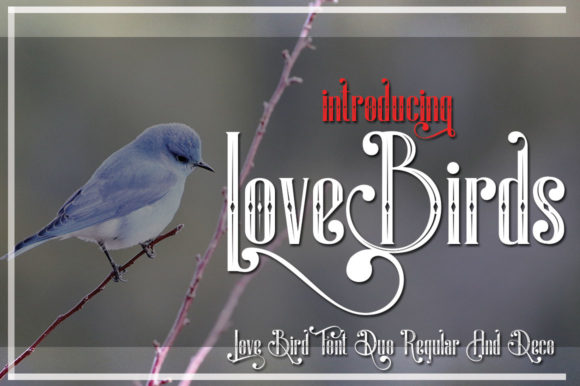
Step into the world of LoveBirds Font, a captivating display font that will ignite your designs with romance and opulence. Its exquisite curves and delicate details will leave a lasting impression, evoking emotions that resonate deep within. Each letter is a masterpiece, crafted with love and care, inviting you to express your heartfelt sentiments in a captivating way.
Whether you're crafting wedding invitations that exude elegance, designing logos that radiate allure, or creating social media graphics that capture attention, LoveBirds Font is your perfect companion. Its versatility knows no bounds, allowing you to infuse your projects with a touch of timeless beauty.
Experience the magic of LoveBirds Font and let your creativity soar. Its enchanting presence will transform your designs into works of art, captivating hearts and leaving an indelible mark on all who encounter them. Embrace the allure of LoveBirds Font and embark on a journey of creative expression that will inspire and enchant.
Key features:
- Stunning display font for a captivating presence
- Romantic and luxurious style for designs that exude emotion
- Versatile applications for endless creative possibilities
- Perfect for wedding invitations, logos, social media graphics, and more
Indulge in the beauty of LoveBirds Font and let your imagination take flight. Your designs deserve the touch of elegance and allure that only this extraordinary font can provide.